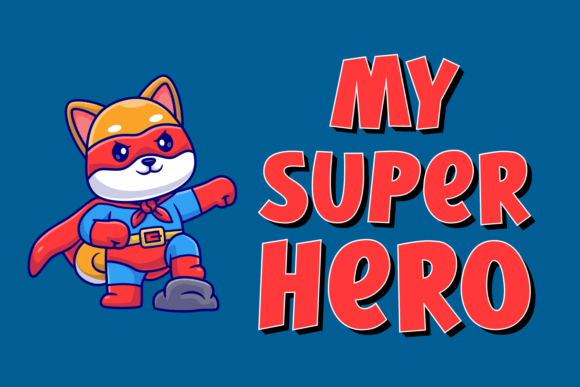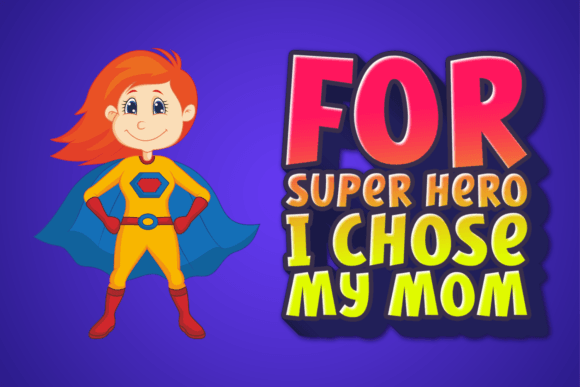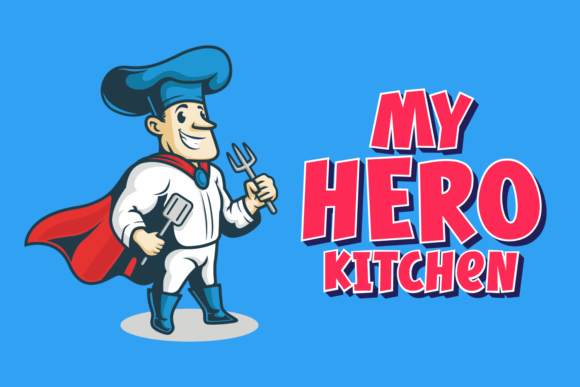
Introduction to Hero Bocil Font
Have you ever been working on a creative project and suddenly, the perfect font pops into your head, elevating the entire design? For designers, this moment is pure magic. It’s like stumbling upon a hidden treasure that makes your design shine. This time, I want to share with you one such treasure – the Hero Bocil Font.
This charming, thick-lettered display font is a game-changer for any design project. Inspired by cartoons, Hero Bocil Font brings a playful touch to your designs, making it perfect for kids’ t-shirts, posters, cards, and more. With its transparent background and high-quality design, you can easily use it for various creative projects. Whether you’re a seasoned designer or just starting out, Hero Bocil Font is a valuable resource that can add a unique touch to your work.
Key Features of Hero Bocil Font
- Hero Bocil Font offers a transparent background, ideal for designers who want to customize their designs.
- Supports a wide range of languages, making it a versatile font for international design projects.
- Features a unique, modern design aesthetic, perfect for creating eye-catching graphics and text elements.
- Includes a large character set, including numerals, punctuation, and special characters, for added flexibility.
Honest Review: Hero Bocil Font
I recently had the chance to work with the Hero Bocil Font, and I’m excited to share my honest thoughts on this design resource.
What works well is that this font is available for free download, making it a great option for those working on creative projects with a limited budget. The font’s unique aesthetic and high quality make it perfect for a variety of applications, from logo designs to digital graphics.
The Hero Bocil Font also features a transparent background, which can be a real time-saver when working with complex designs. This feature allows for seamless integration with other design elements, making it easier to achieve a cohesive look.
Here are some of the key features that I appreciated:
- Unique aesthetic
- High quality
However, I did encounter some limitations with this font. While it’s great for digital applications, I found that it may not be the best choice for print projects, particularly those that require high-resolution images.
Overall, I’m impressed with the Hero Bocil Font and would definitely recommend it for designers looking for a high-quality, free design resource.
Tips for Getting the Most Out of Hero Bocil Font
Experiment with different font sizes and styles to achieve the desired effect in your design. Use the transparent background feature to create visually appealing text overlays and graphics.
Common Use Cases for Hero Bocil Font
Use the Hero Bocil Font in a variety of creative projects, including social media graphics, logo designs, and business cards. Its high quality and transparent background make it an ideal choice for a range of design applications.